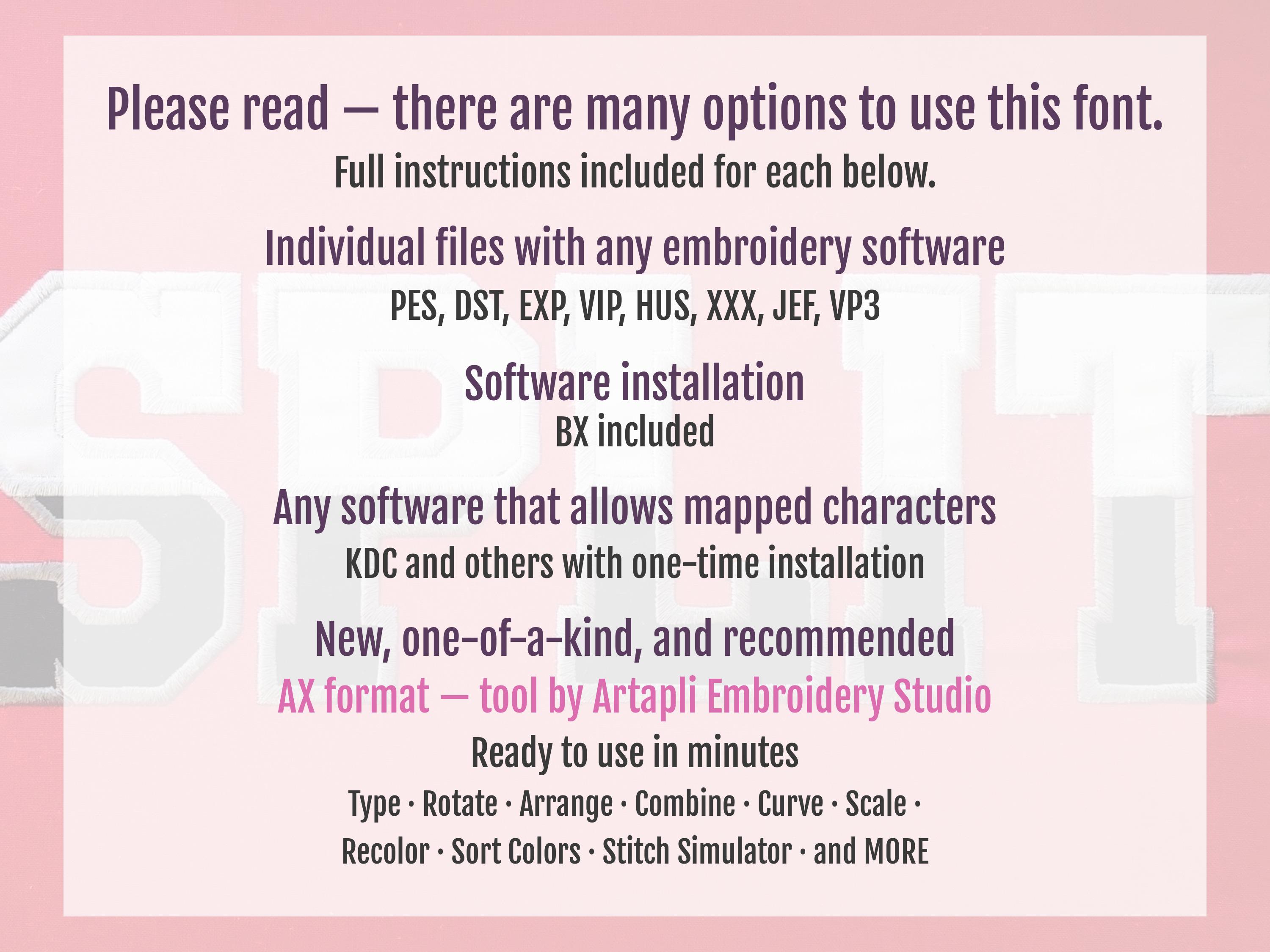
2 colors ATHLETIC block Font split divided Collegiate varsity Split Applique alphabet machine embroidery design 2, 3, 4, 5, 6, 7, 8 inches
Uppercase letters and numbers.